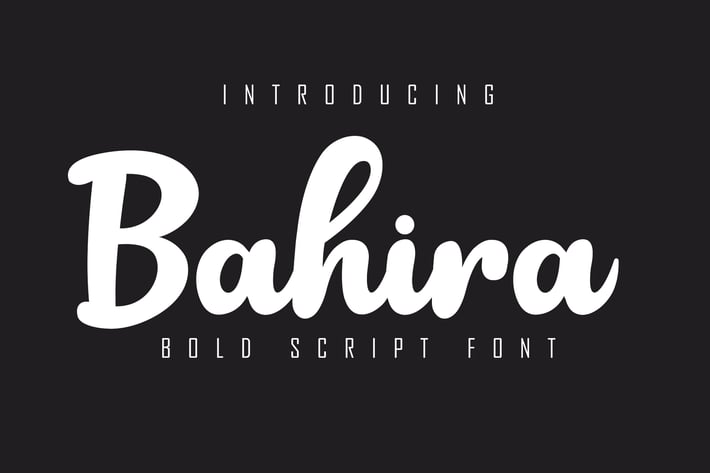
Bahira Bold Script Font
Bahira is a minimalistic and beautiful bold script font that is perfect for commercial needs and supports your design efforts